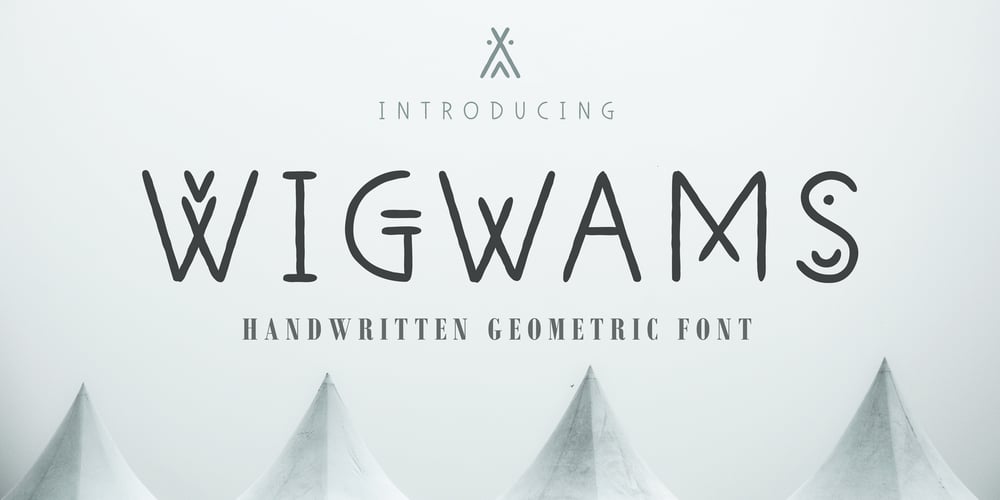
Wigwams Font Family was designed by Viktoryia Strukouskaya, Viktor Strukouski and published by Struvictory.art. Wigwams contains 2 styles and family package options. We would like to introduce our new product Wigwams – Handwritten Geometric Font. Wigwams is a linear font in a hand-drawn minimalistic style, the lowercase is decorated with geometric elements. The typeface includes Regular and Symbol versions. Combine the font with symbols to get a unique design. The font is easy to use in various design programs or without any program. Wigwams is suitable for lettering posters, camping products, photo overlays in hipster style and music albums. The font works great both for printing clothes and craft products, branding and packaging (herbal tea, handmade soap, organic food). Also use individual letters and symbols to create logos and monograms.